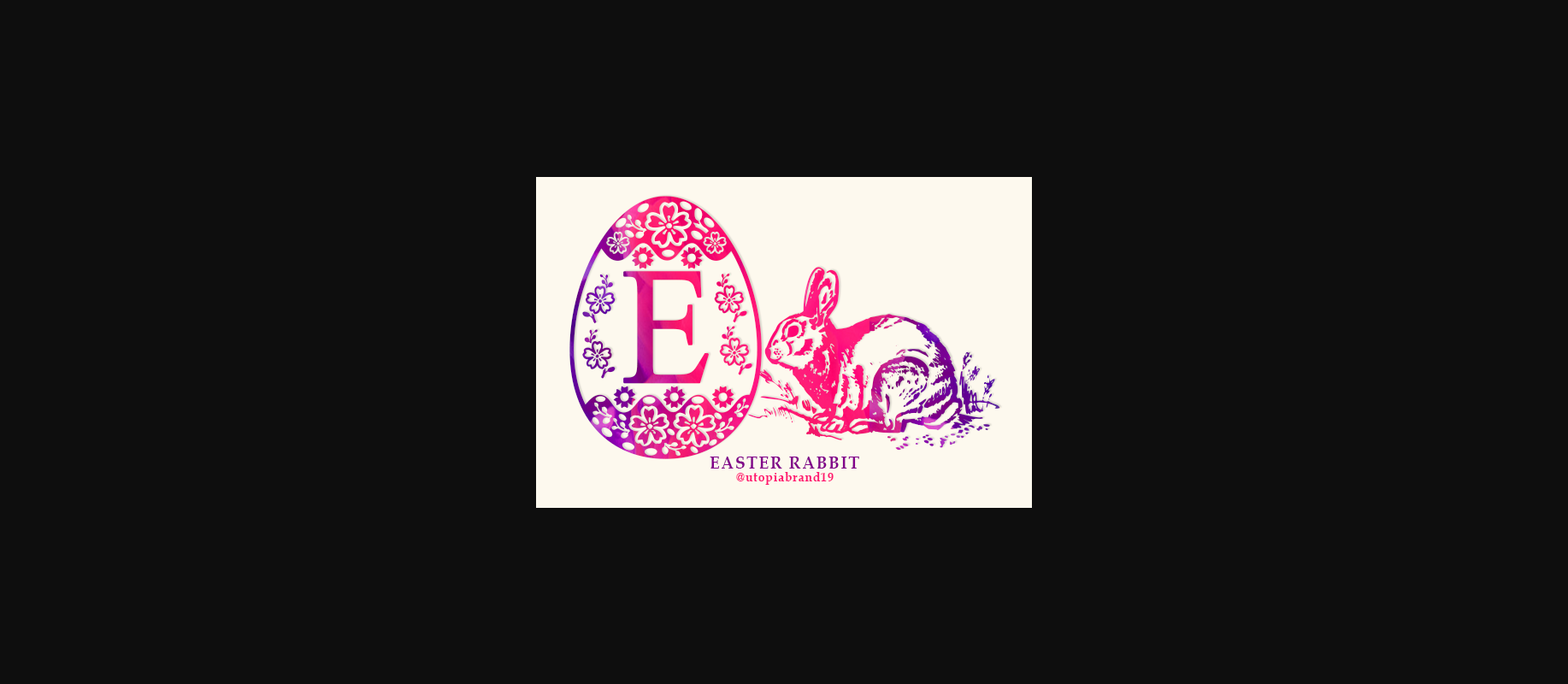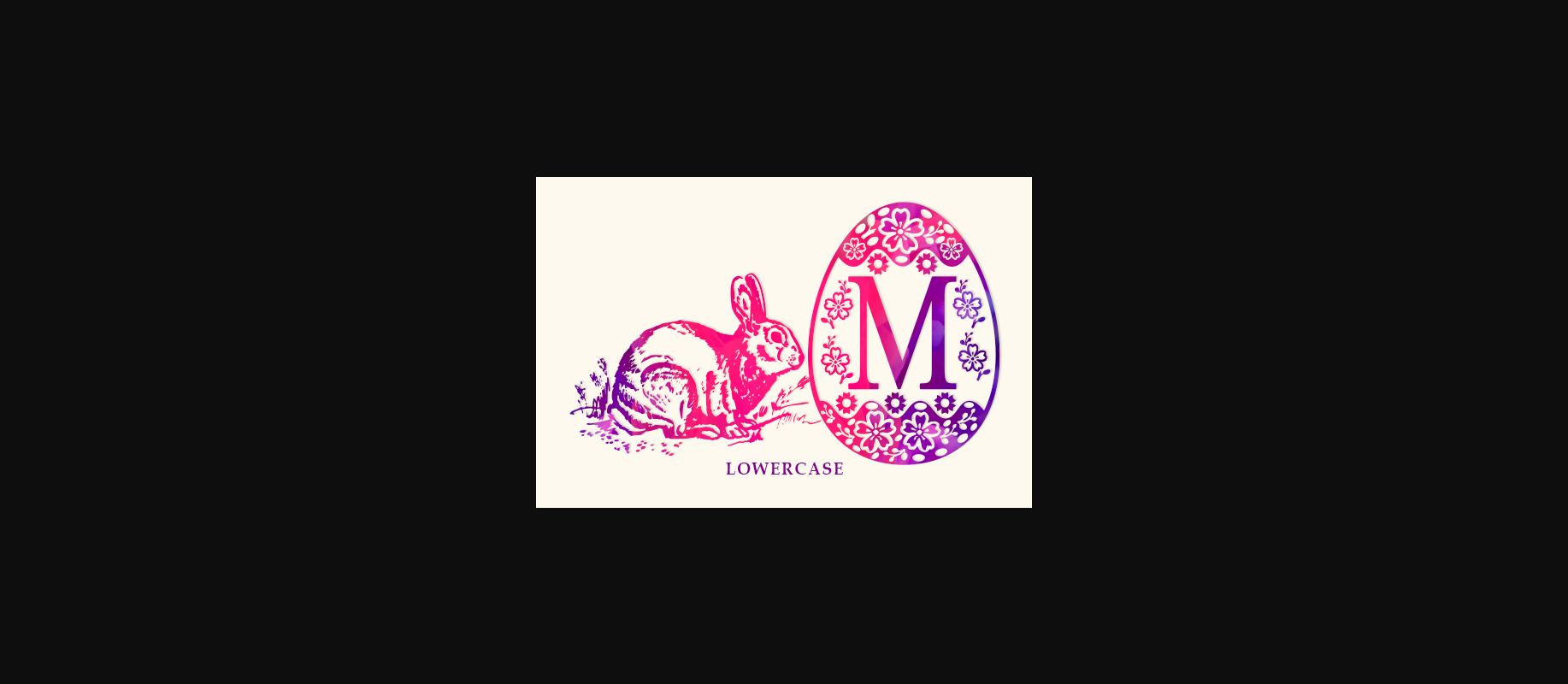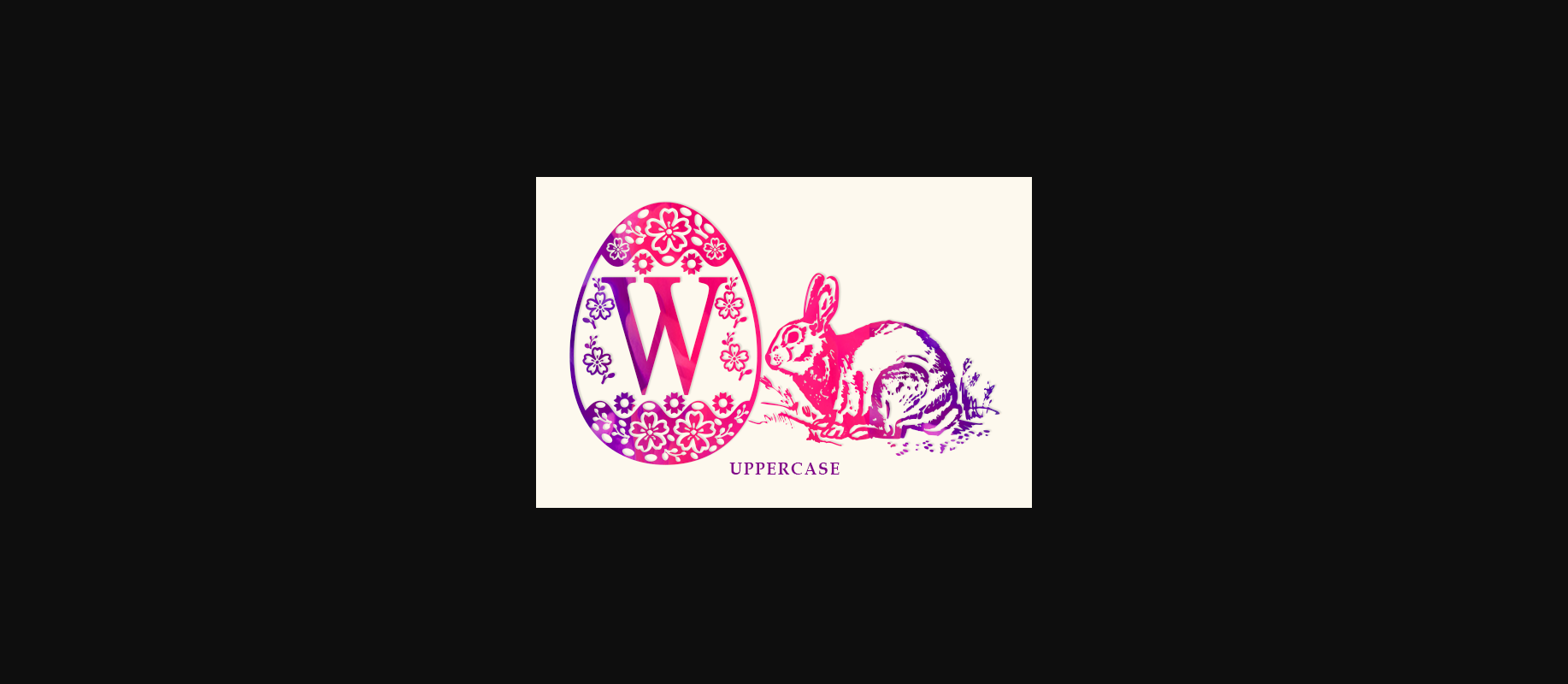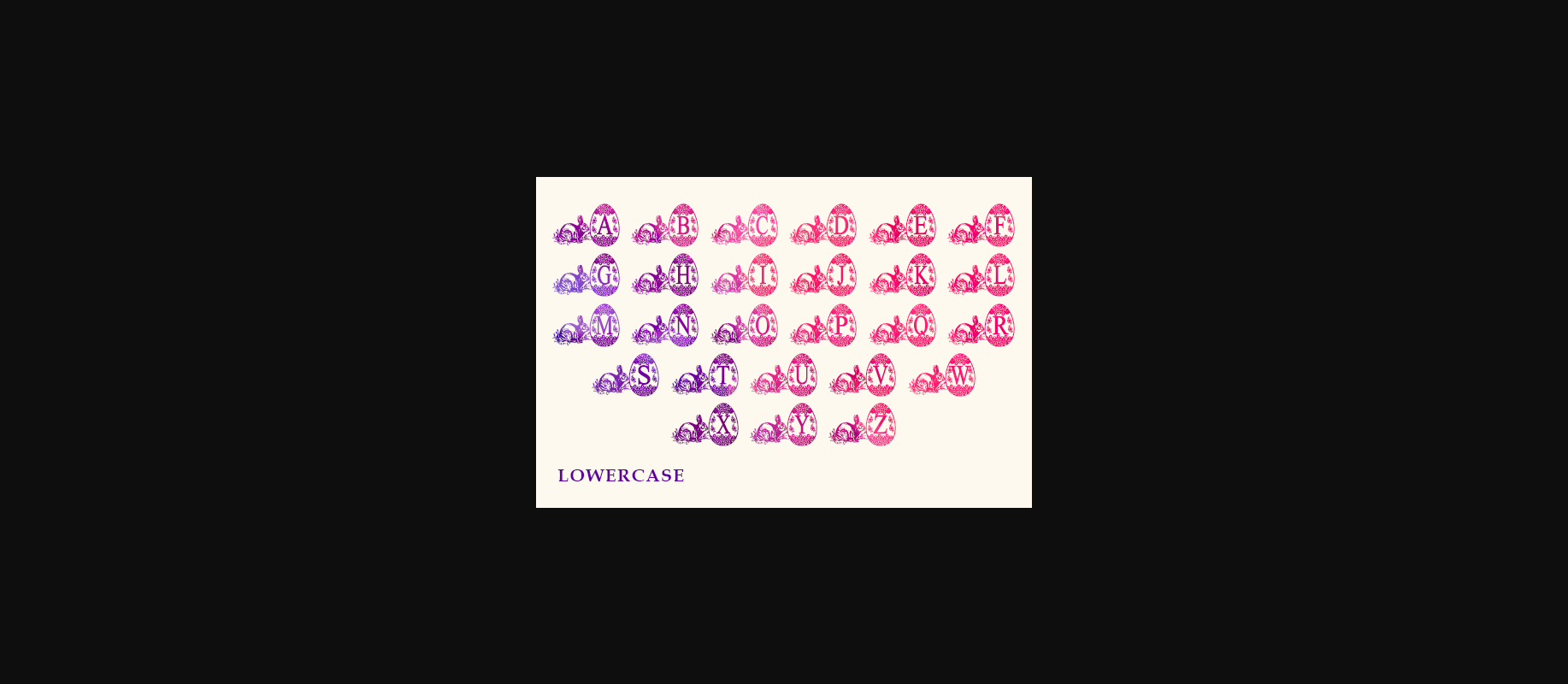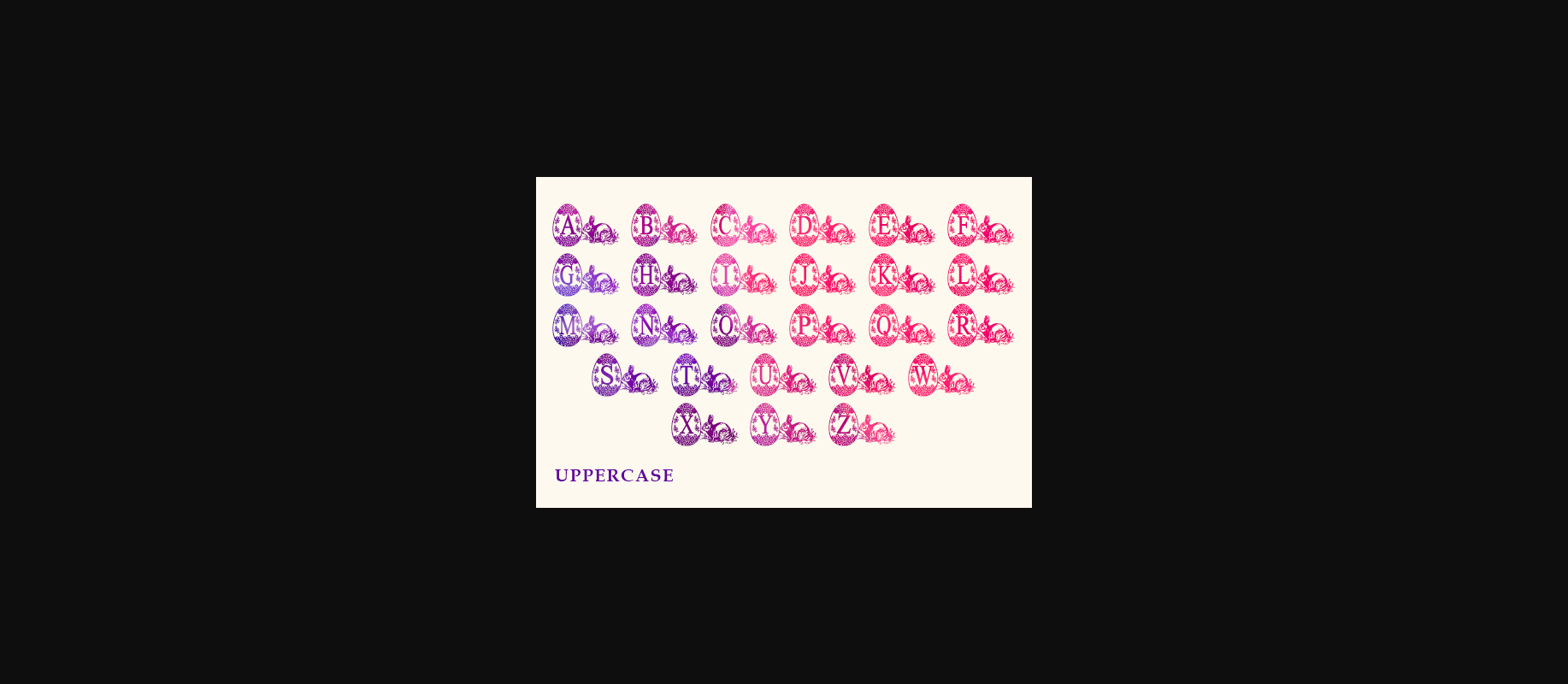
About Easter Rabbit Font
Easter Rabbit is a sweet decorative font, ideal for your Easter related design ideas. Simple but with a strong visual effect, this font will instantly make your creation more appealing than any others.